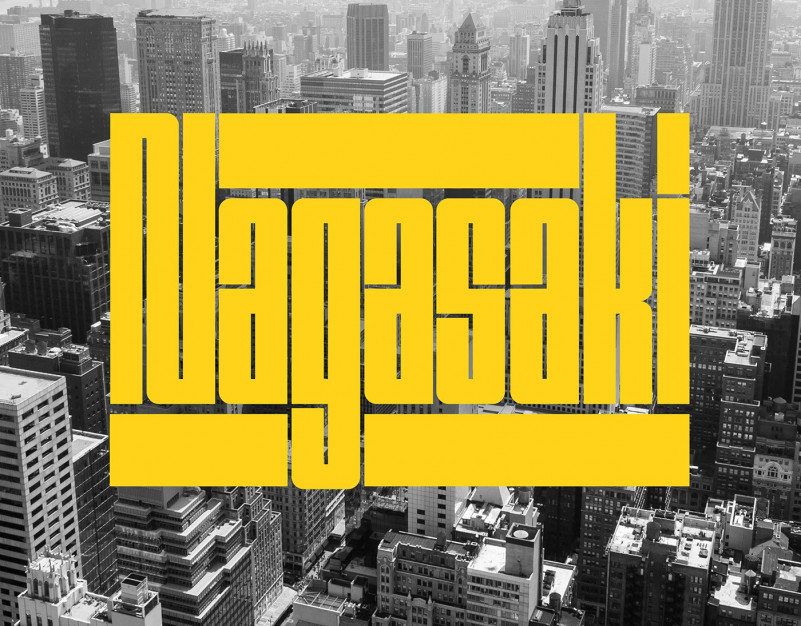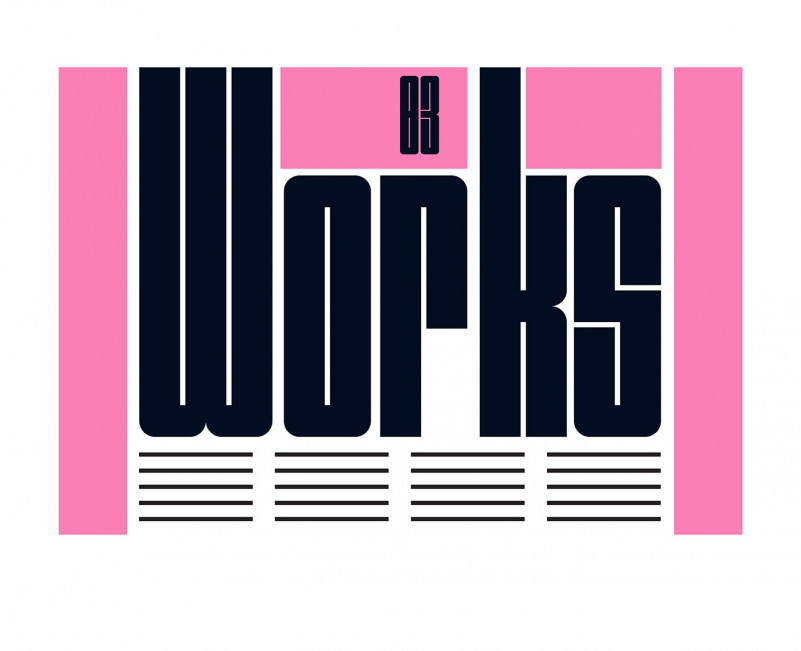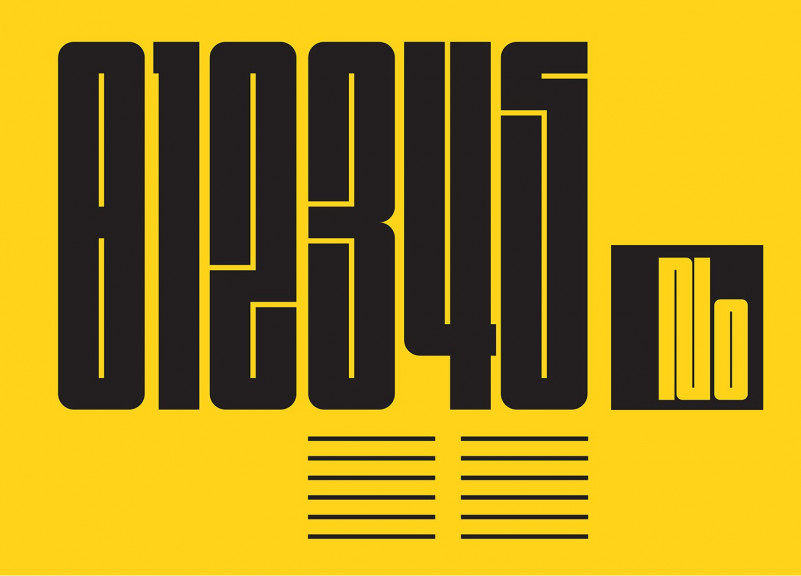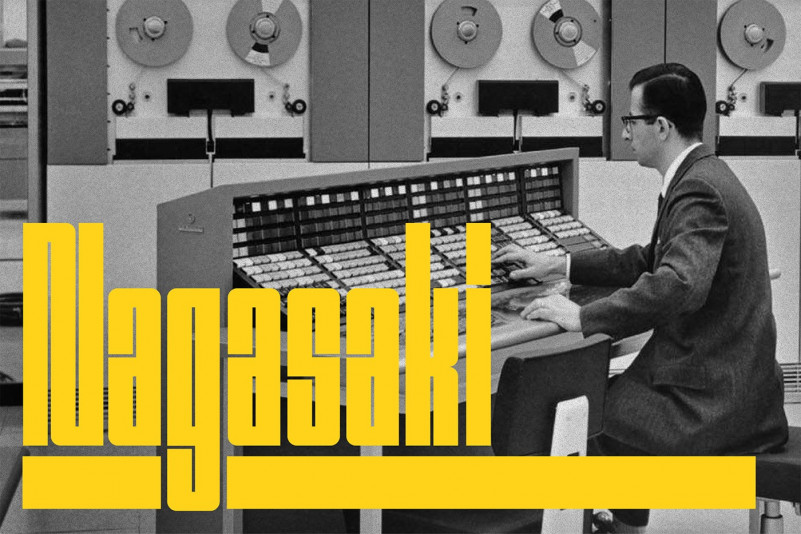
Nagasaki Display Font
This is a free display sans font created by Sasha Iacob and vlad poparlan with variations of different heights and baseline position. This tyepeface is unique and very suitable for logos, Tshirt, apparel, quote, handwritten quotes, product packaging, tittle header, poster, merchandise, social media, labels, branding & greeting cards.